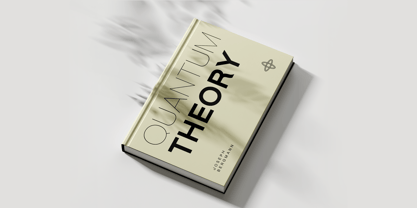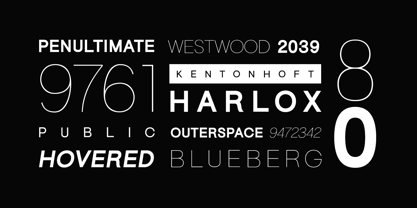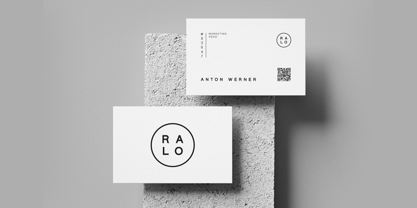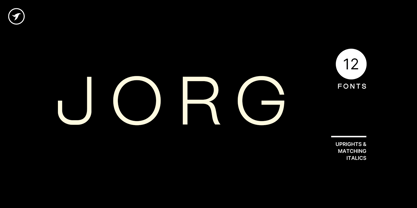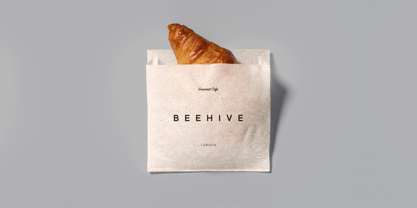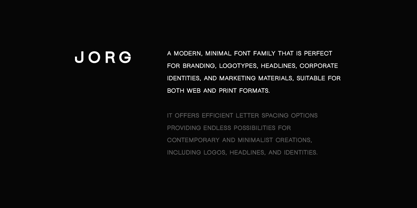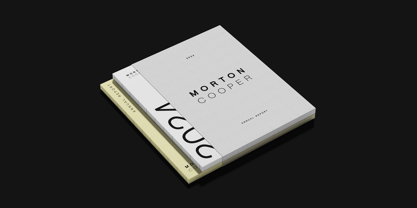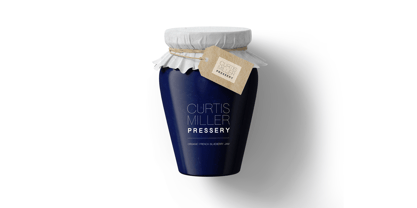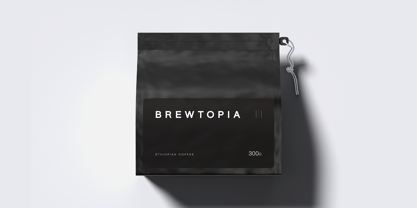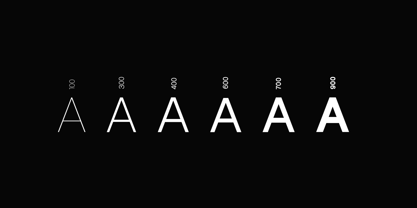
Jorg Nova
by Designova
The Jorg Nova Font Family was designed by Jean Johnson and published by Designova. Jorg Nova contains 12 styles and family package options. More about this family
ABOUT THE FONT FAMILY:
JORG is a modern, minimal font family that is perfect for branding, logotypes, headlines, corporate identities, and marketing materials, suitable for both web and print formats. This all-caps typeface offers efficient letter spacing options providing endless possibilities for contemporary and minimalist creations, including logos, headlines, and identities.
Thanks to its efficient letter spacing options, this versatile font offers endless possibilities for modern and minimalist designs, including logos, headlines, and identities. Please see the included demographics to get an idea about the capability of this typeface when used for branding and marketing material design.
The JORG font family comes with 12 fonts, including 6 upright weights (THIN / LIGHT / REGULAR / SEMIBOLD / BOLD / BLACK) as well as Italic versions of all 6 weights. Each weight includes extended language support including Western European & Central European sets. A total of 336 glyphs are included.
FEATURES:
JORG font family includes a collection of 12 fonts in total, with seven upright weights and Italic equivalents of all seven weights as follows:
- Thin
- Thin Italic
- Light
- Light Italic
- Regular
- Italic
- SemiBold
- SemiBold Italic
- Bold
- Bold Italic
- Heavy
- Heavy Italic
336 GLYPHS INCLUDED:
Handcrafted and designed with powerful OpenType features in mind, each weight includes extended language support with Western European, Central European, and South Eastern European sets. A total of 336 glyphs are available.
EXTENSIVE LANGUAGE SUPPORT:
Scripts: Latin
Designers: Jean Johnson
Foundry: Designova